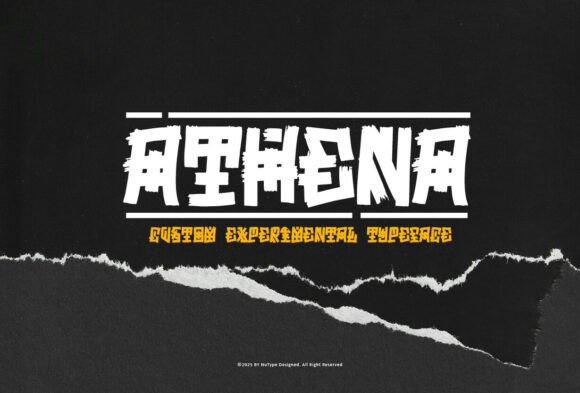
Athena Font: Unleash the Power of Unique Typography
In the world of typography, fonts play a crucial role in conveying the message and aesthetic of a design. With the numerous font options available, it can be challenging to find one that stands out from the crowd. However, if you’re looking for a typeface that embodies the perfect blend of modernity and cultural flair, look no further than the Athena Font. Inspired by the bold and geometric rhythm of Korean lettering, Athena is a handcrafted display typeface that is sure to elevate your designs to the next level.
The Inspiration Behind Athena
Athena’s design is rooted in the unique characteristics of Korean lettering. The font’s creator drew inspiration from the bold and geometric patterns found in Korean typography, infusing each character with a personal touch. The result is a typeface that feels organic and artistic, while still maintaining a strong modern vibe. This distinctive blend of traditional and contemporary elements makes Athena a standout in the world of typography.
What Makes Athena Special
Athena’s uniqueness lies in its experimental letterforms, which bring out creativity and originality in every design. Each character is carefully crafted to provide a distinctive and cultural flavor, making it perfect for designers who want to add a touch of personality to their projects. Whether you’re working on a branding campaign, a website, or a print project, Athena is sure to make your design stand out.
Key Features of Athena Font
- Handcrafted with love: Each character is carefully designed with a personal touch, making Athena feel organic and artistic.
- Geometric rhythm: Inspired by the bold and geometric patterns of Korean lettering, Athena boasts a unique and modern aesthetic.
- Experimental letterforms: Athena’s letterforms are designed to bring out creativity and originality in every design.
- Cultural flavor: With its roots in Korean typography, Athena adds a distinctive cultural touch to any design.
- Perfect for display text: Athena is designed specifically for display text, making it ideal for headlines, titles, and other prominent text elements.
Who Can Benefit from Athena Font
Athena is perfect for designers, crafters, and anyone looking to add a unique touch to their projects. Whether you’re a:
- Graphic designer: Looking for a font that will make your branding campaigns stand out.
- Web designer: Seeking a typeface that will add a touch of personality to your website.
- Printer: Wanting to offer your clients a distinctive and cultural font option.
- Crafter: Looking for a font that will add a personal touch to your handmade projects.
Tips for Using Athena Font
To get the most out of Athena, here are some tips for using this unique typeface:
- Use it sparingly: Athena is a display font, so use it sparingly to make a big impact.
- Experiment with colors: Athena’s geometric patterns look great with bold and bright colors.
- Mix and match: Combine Athena with other fonts to create a unique and visually appealing typography.
In conclusion, Athena Font is a unique and handcrafted display typeface that is sure to elevate your designs to the next level. With its bold and geometric rhythm, experimental letterforms, and cultural flair, Athena is perfect for designers and crafters looking to add a distinctive touch to their projects. So why settle for ordinary typography when you can unleash the power of Athena?